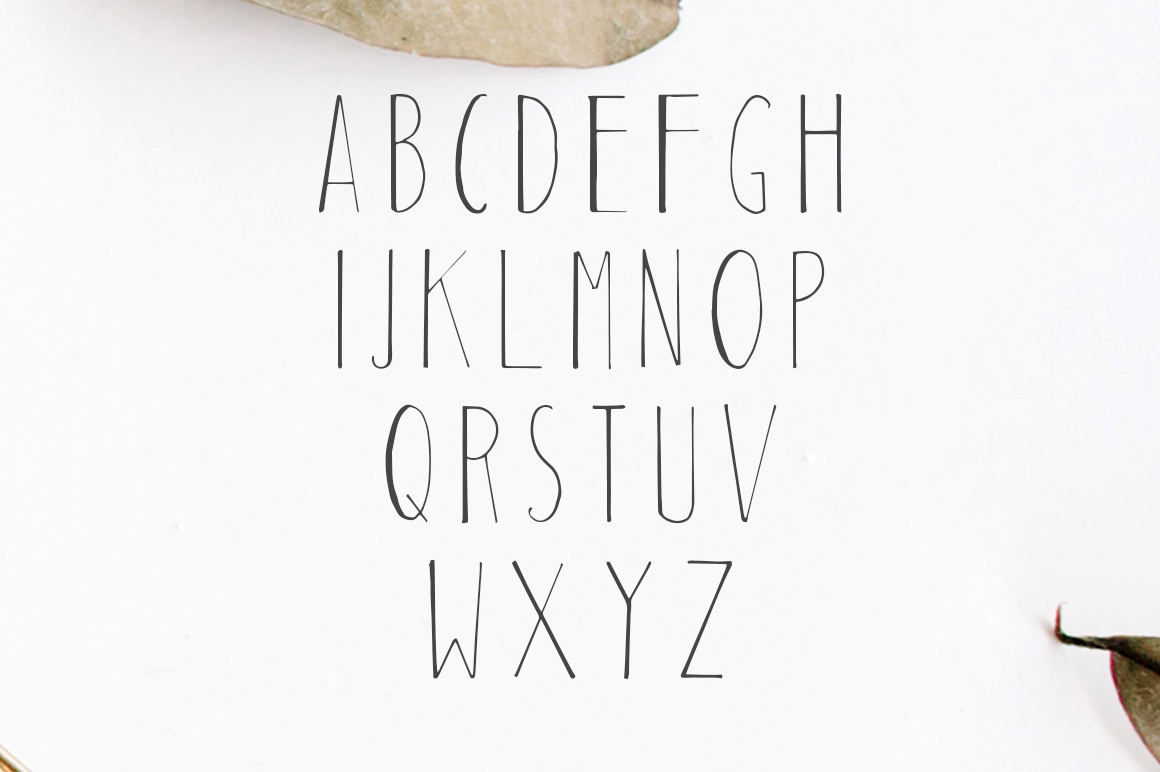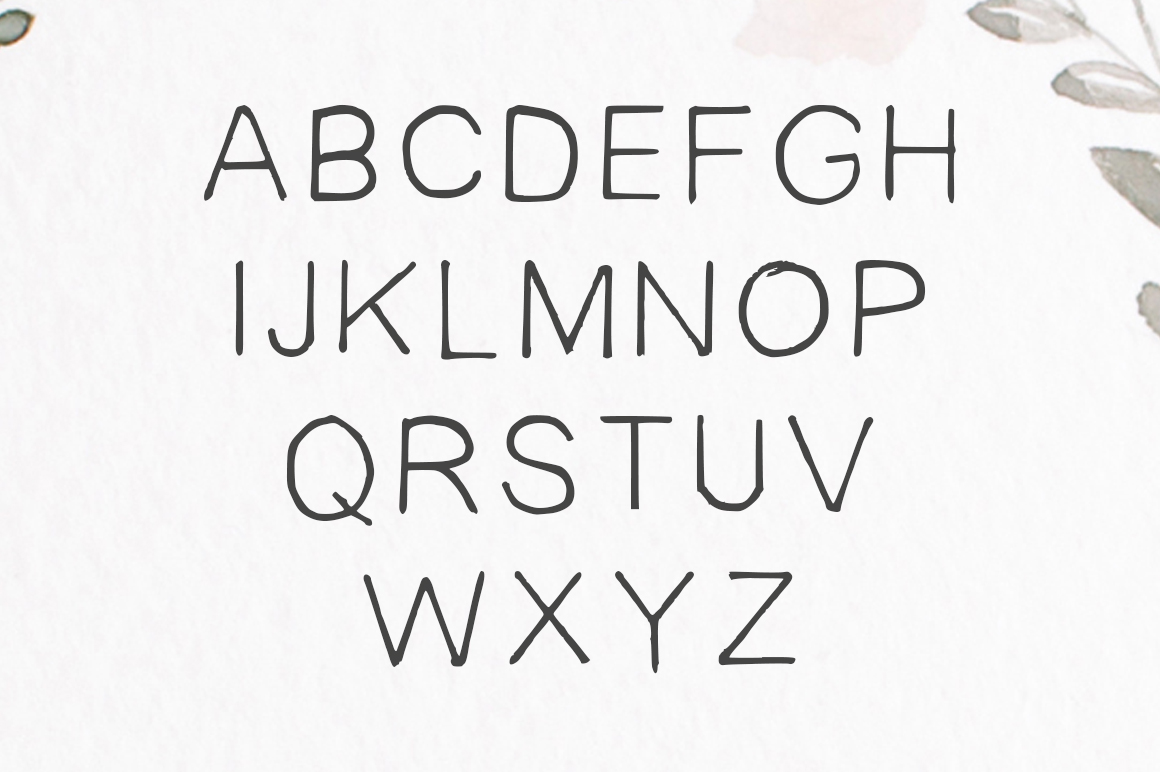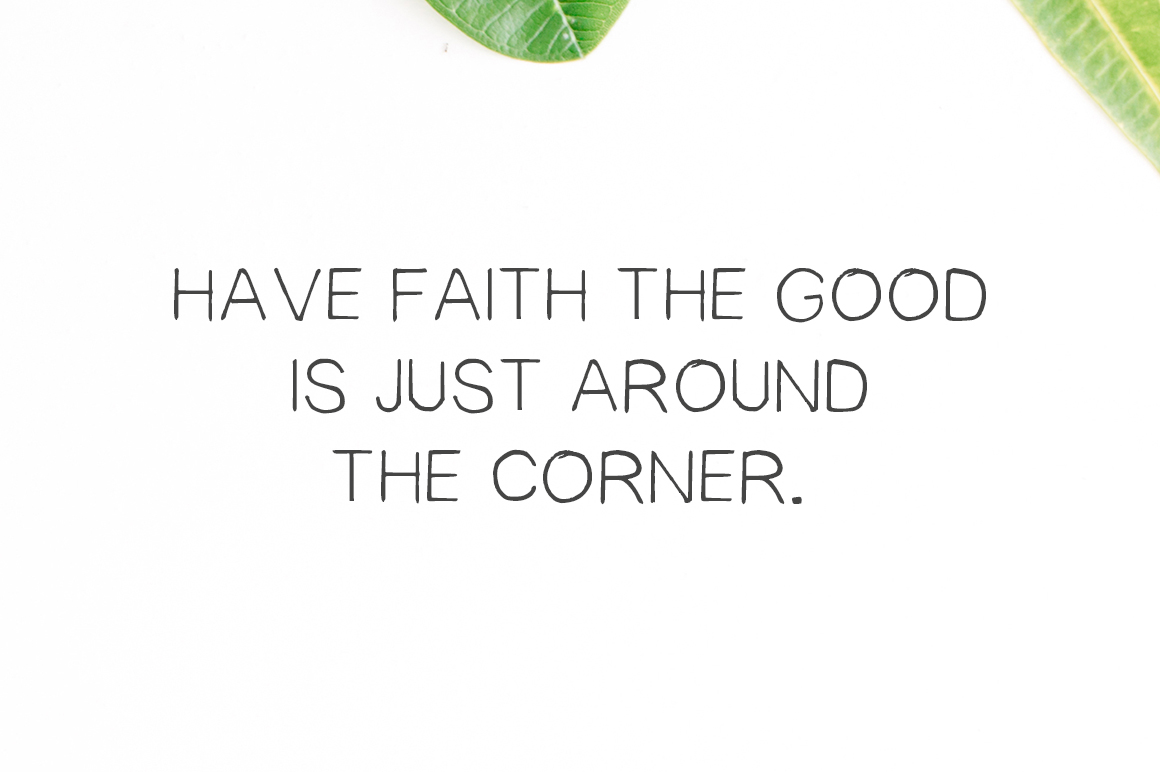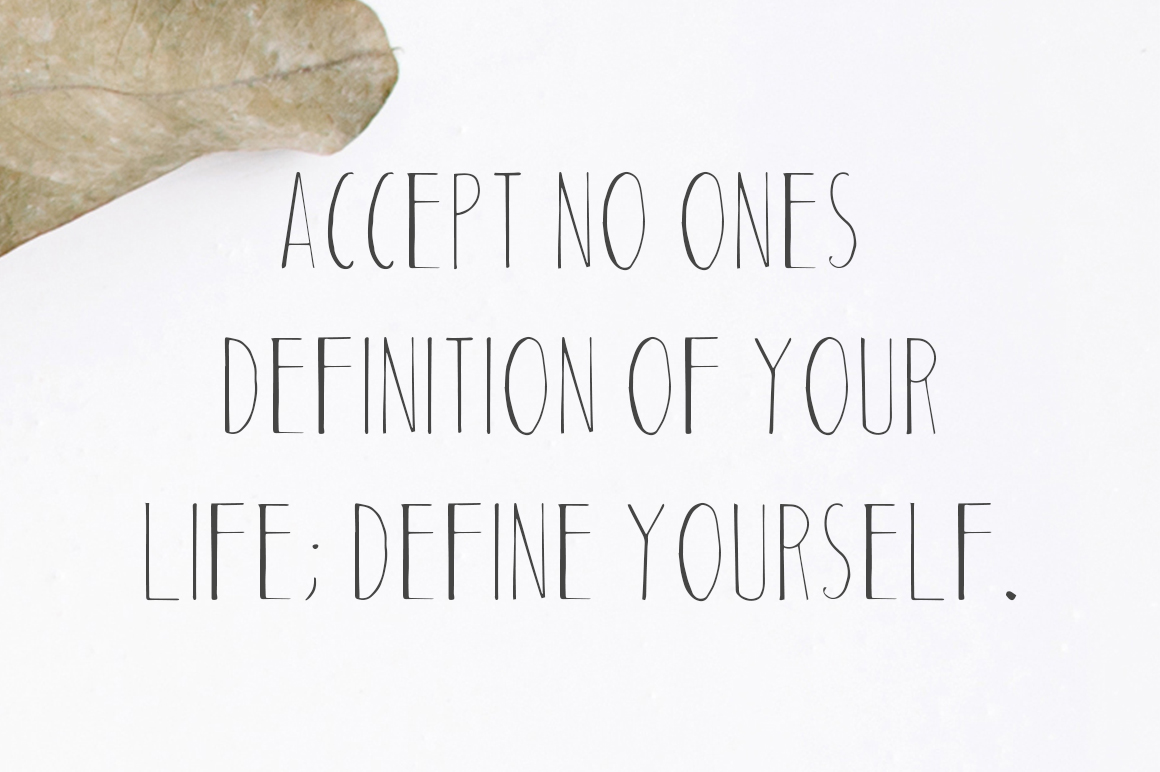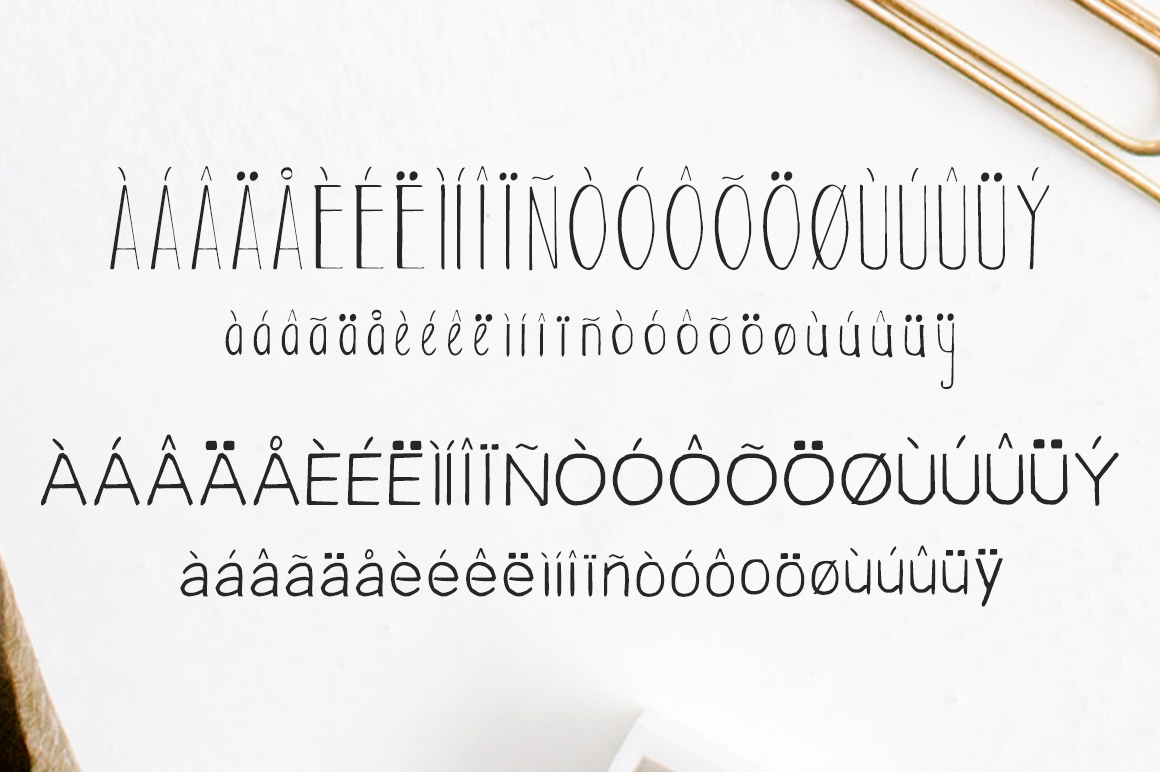
Introduction to Habel Font
Habel is a handmade font duo that consists out of 2 fonts: Habel Adouliss Both go together perfectly, but also work well individually.
Habel Font offers exceptional quality and versatility, making it a valuable addition to your design toolkit. Whether you’re creating for personal projects or commercial use, Habel Font delivers professional results.